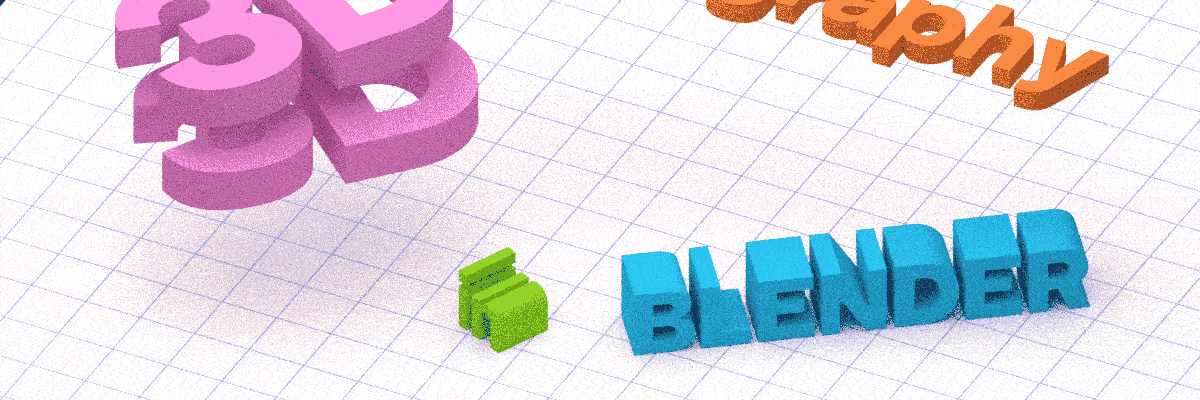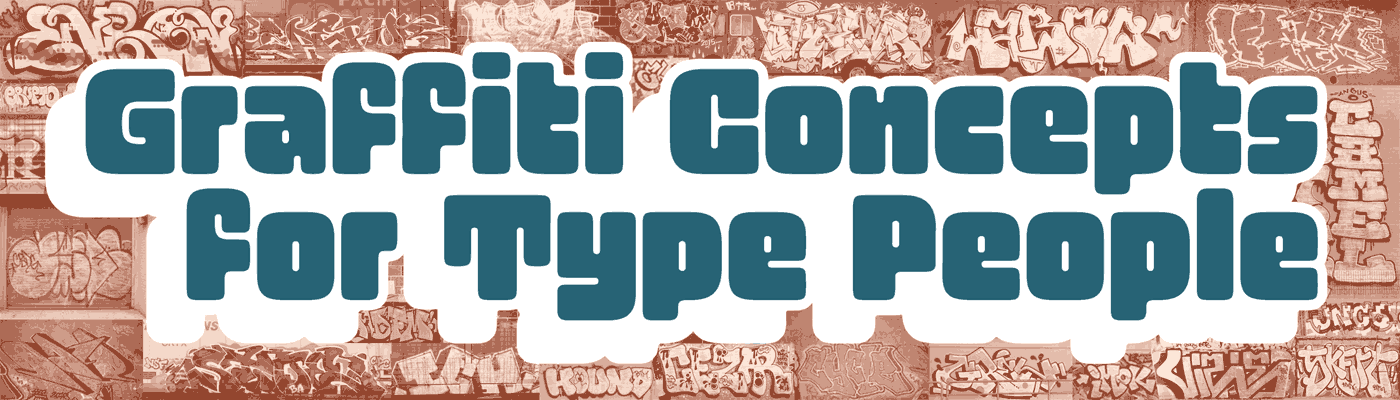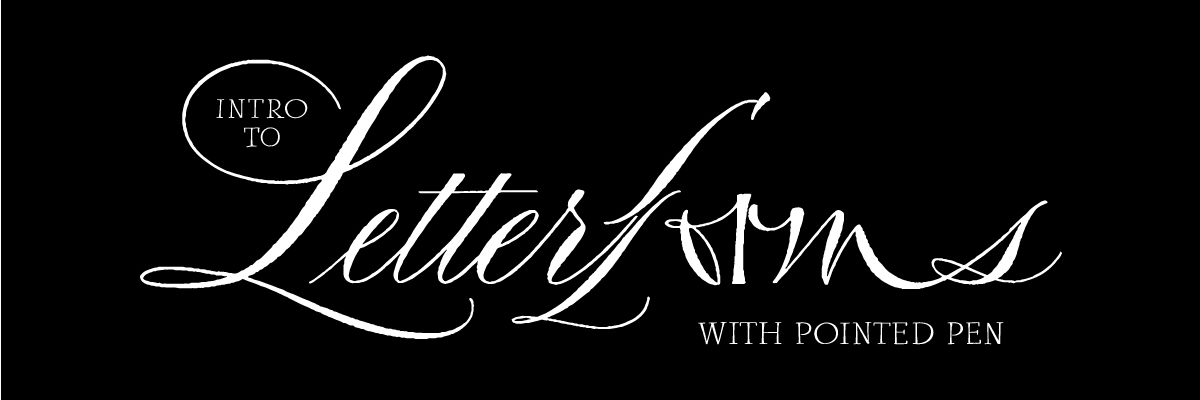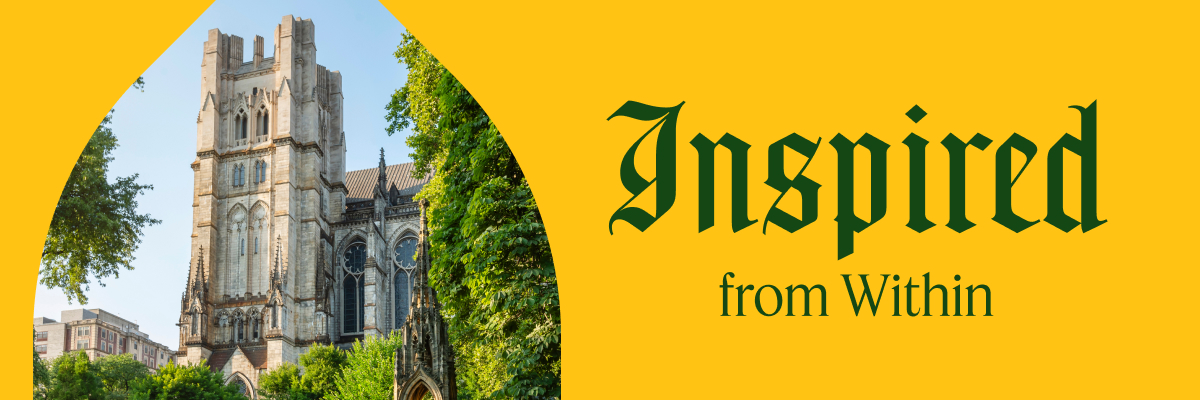
Graffiti Concepts for Type People with Kel Troughton
Graffiti Concepts for Type People
with Kel Troughton
Learn drawing techniques and understand letter structure from a graffiti writing context to enhance your type and lettering work. This workshop focuses on graffiti pieces and the rich subculture of graffiti writers—a tradition of letterforms that originated on New York City subways in the 1970s. Through drawing exercises, history lessons, and demonstrations, participants will learn how to adapt ideas from the graffiti world while respecting the artform and its practitioners. You’ll work on a series of drawings, developing one idea into a lettering piece, drawn alphabet, or foundation for a new display typeface. Kel will help you see the graffiti around you in new ways and leave the workshop with fresh ideas and a deeper appreciation for graffiti work. No prior experience with graffiti writing is necessary—just a type or lettering practice and curiosity for other forms of letter making. No computers are required for this workshop.
Useless Fonts with David Březina, Anna Štepanovská
Useless Fonts
with David Březina, Anna Štepanovská
A virtual studio visit and talk by David Březina & Anna Štepanovská
We consider clients to make our work useful and make a living. We try to anticipate trends or win accolades from our peers. When left unchecked, the considerations become stifling. But what will happen if we choose to design all the fonts that we once deemed useless?
3D Typography in Blender with Rob Stenson
3D Typography in Blender
with Rob Stenson
Have you ever wanted to build a tower made of letters? Wouldn’t it be fun to knock it over and watch all the glyphs crash into each other? Or what about an entire paragraph of text that can float like helium balloons? And what if you took a really nice shallow depth-of-field photograph of those balloons as they flew away into an orange sunset?
This two-day workshop will focus on building and animating typography in three dimensions using the open-source program Blender and ST2, an extension that brings high-quality—and cutting-edge—typography to Blender.
If time allows, we’ll also unlock procedural workflows in Blender, using both their Geometry Nodes visual programming language and Python for text-based scripting.
By the end of the class, you’ll have your very own photorealistic 3D typography animation.
Inspired from Within with Selman Creative, St. John the Divine Marketing Team
Inspired from Within
with Selman Creative, St. John the Divine Marketing Team
-A conversation with Selman Creative Director Anne Di Lillo, Senior Designer Courtney Ewan, and St. John the Divine’s marketing team, Kristine Pottinger & August Kissel on the influence of the Cathedral’s historical type within the new identity system of St. John the Divine.
-Participants will create their own charcoal rubbings from inlaid bronze lettering and historic inscriptions. Charcoal and paper provided by Selman.
Curator’s Tour: Fallout: Atoms for War & Peace with Angelina Lippert
Curator’s Tour: Fallout: Atoms for War & Peace
with Angelina Lippert
Join us at the Poster House for a private viewing of their exhibition, Fallout. This exhibition chronicles the global development of the nuclear industry, for peaceful and offensive means, examining posters that both promoted and protested its use throughout the second half of the 20th century. It features the entire General Dynamics series, long heralded as one of the finest examples of corporate propaganda ever created, as well as over 60 other posters criticizing the proliferation of nuclear technology.
Intro to Letterforms with Pointed Pen with Aspacía Kusulas
Intro to Letterforms with Pointed Pen
with Aspacía Kusulas
Discover the rhythm and structure of calligraphy while learning to see letterforms in a new way. This workshop introduces the fundamentals of pointed pen calligraphy through the lens of historical Copperplate script—a formal yet fluid style that encourages precision, rhythm, and creative exploration.